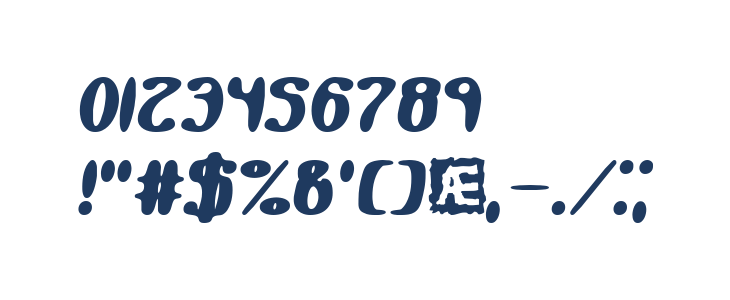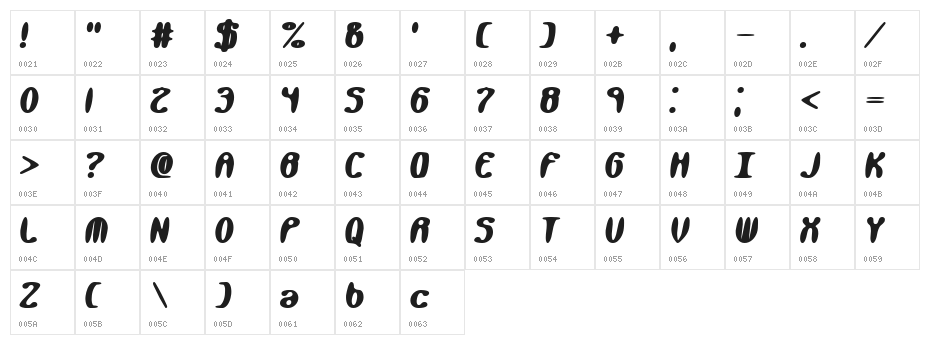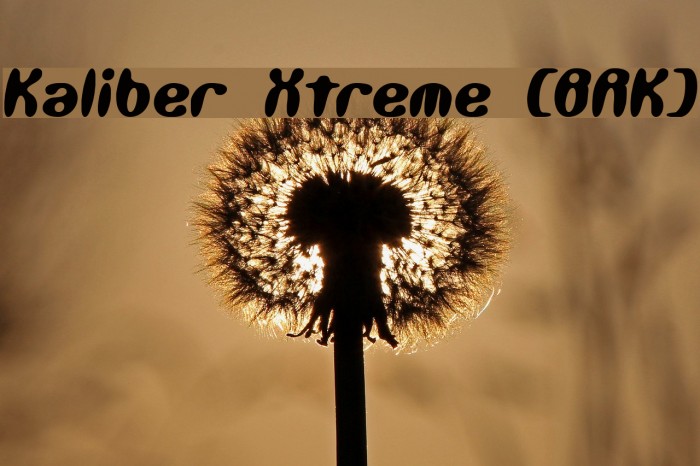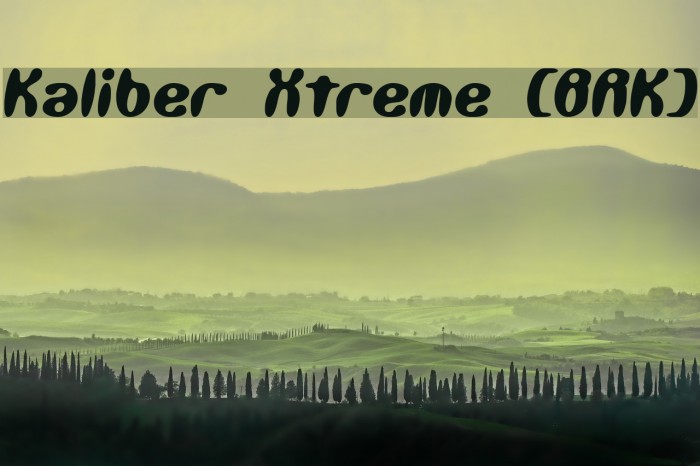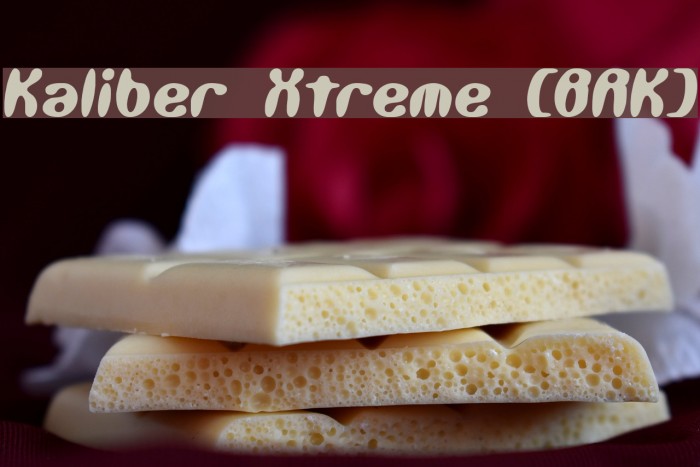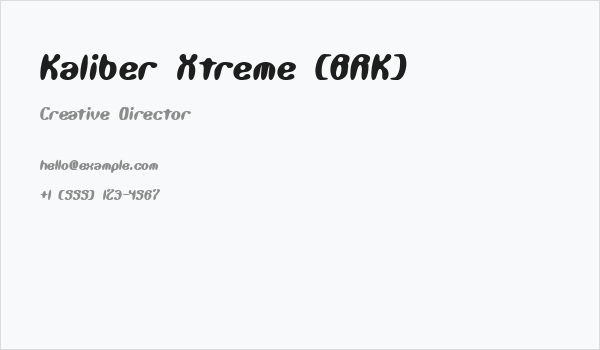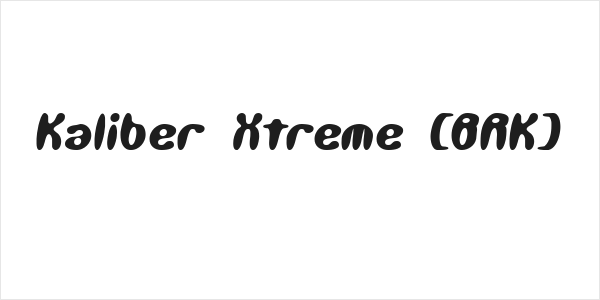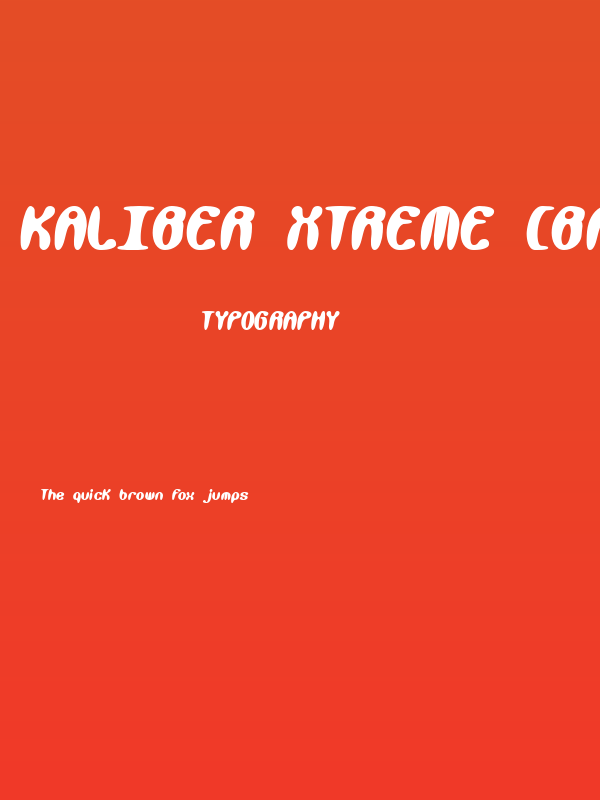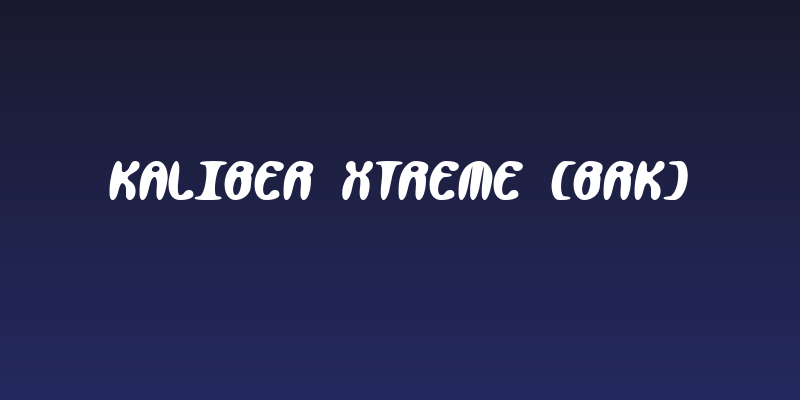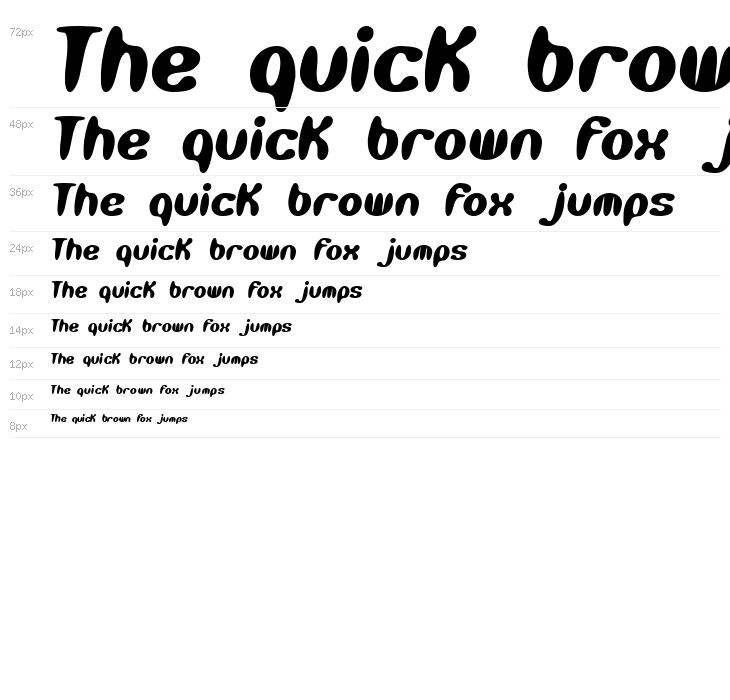
Kaliber Xtreme [BRK] Font
Kaliber Xtreme [BRK] Description
This font features a bold and playful design with a unique, rounded style. The characters are thick and have a bubbly appearance, giving them a whimsical and fun vibe. The uppercase and lowercase letters maintain a consistent weight, creating a cohesive look across the alphabet. The numbers and special characters follow the same design principles, ensuring uniformity throughout. The font's exaggerated curves and rounded edges make it stand out, ideal for projects that require a lively and energetic feel.
Overall StylePlayful, Whimsical
Use CaseLogos, Posters, Headlines
Proposed ProjectsIdeal for children's books, playful branding, party invitations, and creative posters.